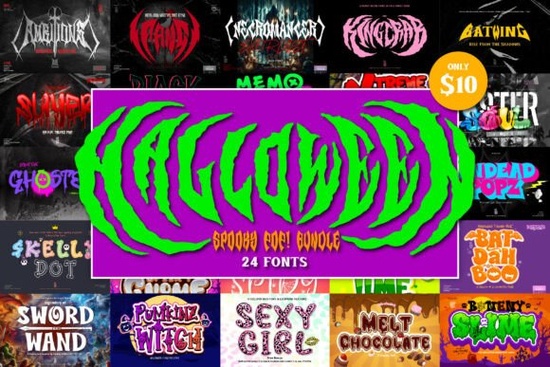
If you're creating Halloween-themed designs this season whether for print-on-demand products, party invites, social media graphics, or kids’ crafts you’ll want fonts that capture the full range of spooky fun. The Pumkinzwitch Font bundle delivers exactly that: a versatile mix of playful, eerie, and edgy typefaces perfect for everything from cute trick-or-treat tags to bold haunted posters.
This collection includes 24 distinct fonts like Ambitions, Bat Dah Boo, Dracular, Fang, and the standout Pumkinz Witch. You’ll also find bonus additions like Undead Popz, Skelly Dot, and the vibrant Sexy Girl (a full-color SVG font). Each brings its own personality some whimsical, some gothic, others downright rock-and-roll.
What kinds of projects work best with these fonts?
Because the bundle spans so many styles, it’s useful across a wide range of creative needs:
- Kid-friendly Halloween cards or classroom decorations – Try Lime Soda or Boneny for cheerful, rounded letterforms.
- Edgy merch or band posters – Fonts like Slayer, Soul Eater, and Extreme Xmas add grit and drama.
- YouTube thumbnails and Instagram posts – Bold, colorful options like Sexy Girl or Melt Chocolate grab attention instantly.
- Product packaging or stickers – Use PumKinz or Spooky Gnome for seasonal charm with hand-drawn appeal.